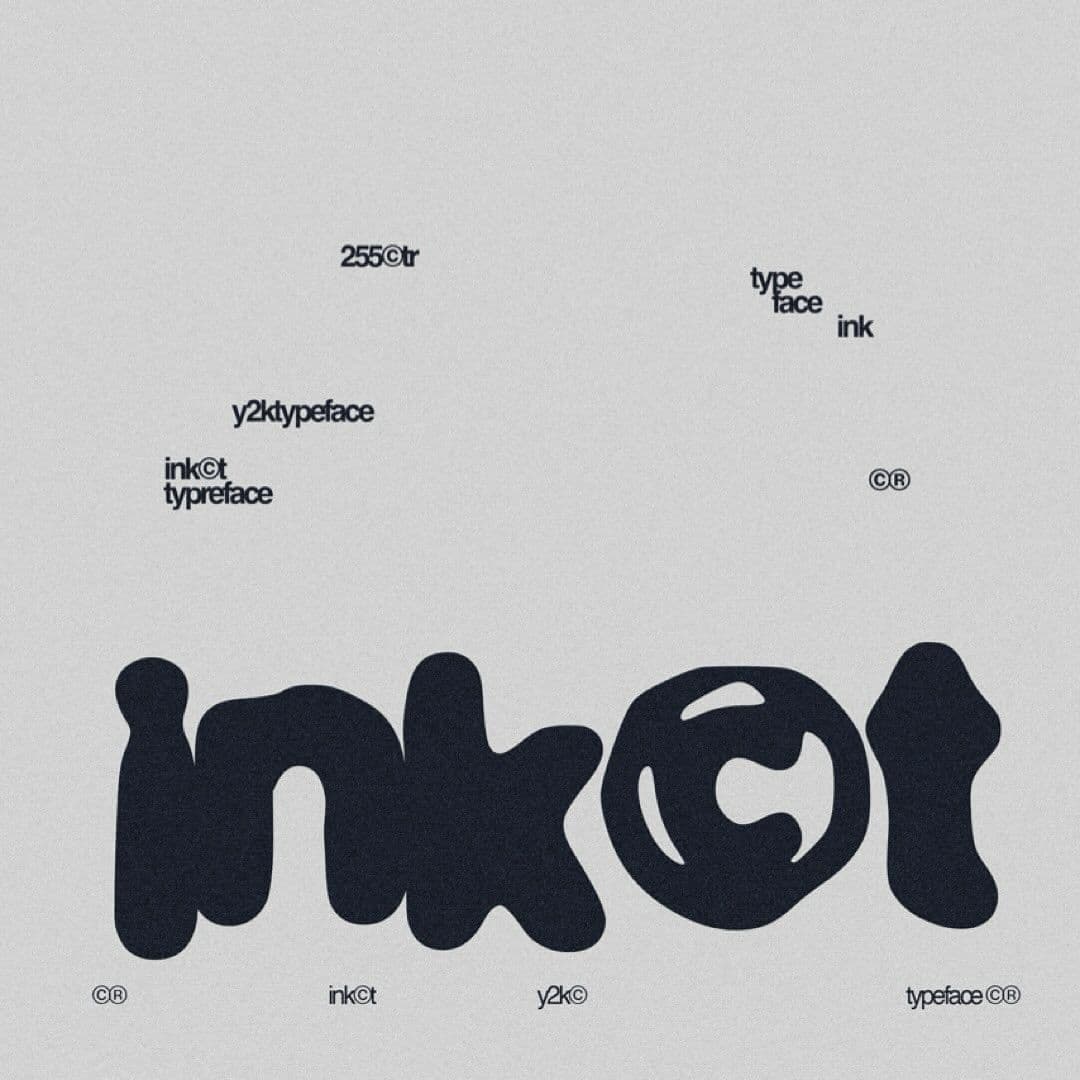
<p><strong>Font Features:</strong></p> <ul> <li>The Typeface is in Y2k Style</li> <li>The Typeface is Y2k Ink Typeface Style</li> <li>The Typeface will fit with any design and will improve the design level</li> </ul>